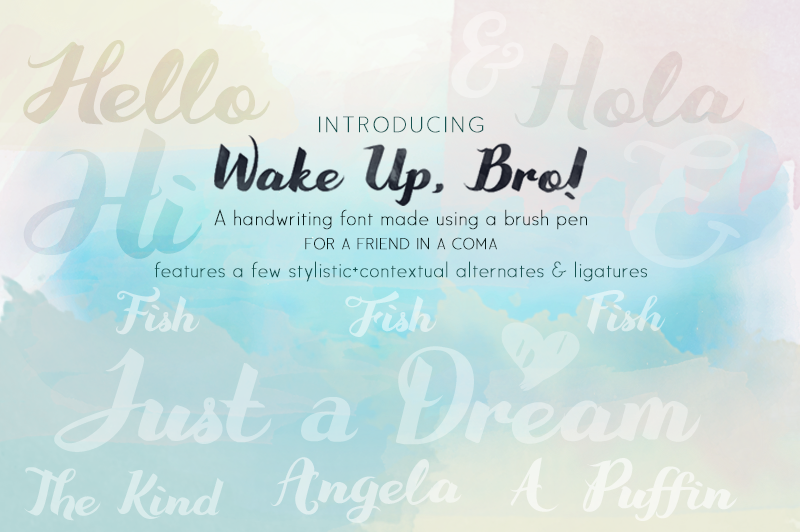
Font name: | Wake Up Bro |
Author: | Violet MX |
Note by Violet MX | |
2 years ago, I bought a 50 cent brush pen & started writing some numbers and letters on a piece of paper. Then I digitized the characters. That gave birth to this font. I didn't know what to call it back then. The font sat in my laptop for a couple of years. I didn't really have plans to release it, or whatever. Then something came up over 2 weeks ago: a childhood friend suffered a heart attack & slipped into a coma. His health insurance coverage from work has been maxed out. True (& sad) story. I usually charge for my fonts, but I'm making this 1 "Donationware". If you find it useful, any donation to my friend's family (these go to his medical bills) would be greatly appreciated http://gogetfunding.com/wakeupbro $1 is fine, but please share this page on social media if you've got a bit more love to give. |